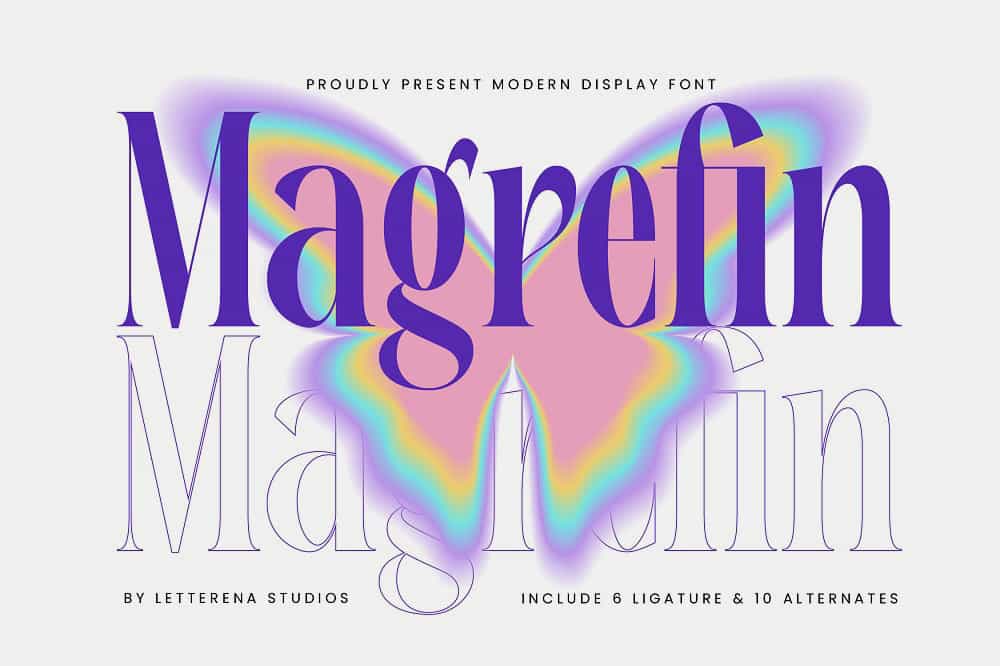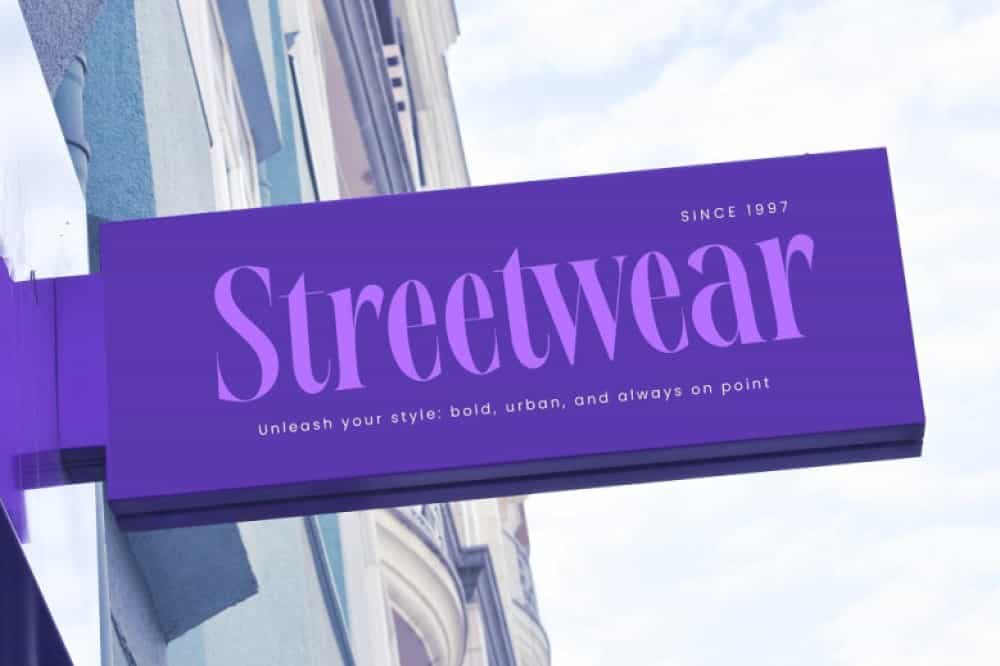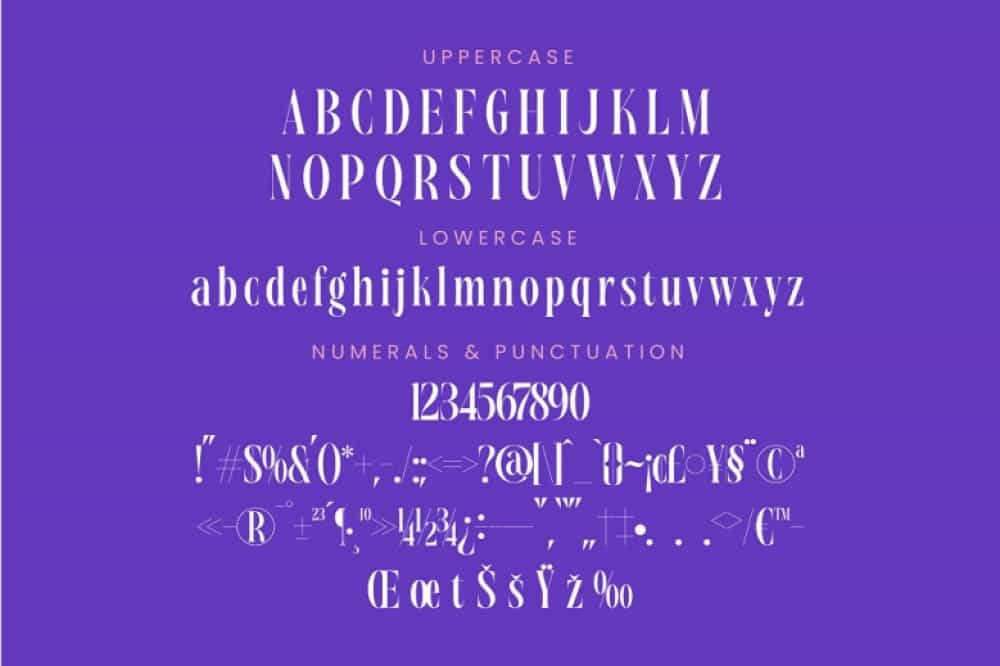
Discover Magrefin Font, part of the Serif Display collection—a versatile and unique font perfect for adding a personal touch to your projects. Download it for free and enjoy crafting designs with style, from invitations to social media posts. This font is available exclusively for personal use, giving you the freedom to create without limits. Unlock your creativity with Magrefin Font today!
Magrefin is a modern display serif font, It’s suitable for any projects such as: logos, branding projects, homeware designs, product packaging, mugs, quotes, posters, shopping bags, t-shirts, book covers, name card, invitation cards, greeting cards, label, and all your other luxury and beautiful projects that need the touch of Luxury Serif.